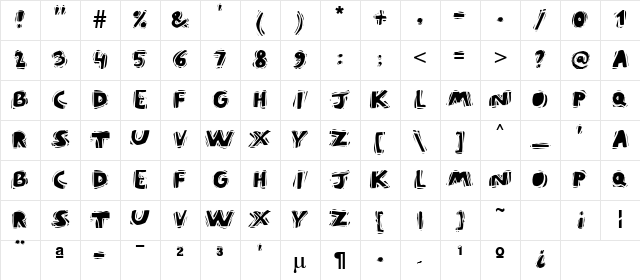
PuraVida Regular
Designer: Natasha Bu
Design Context for PuraVida
PuraVida is a composed and adaptable typeface that performs quietly and consistently across a wide range of design contexts.